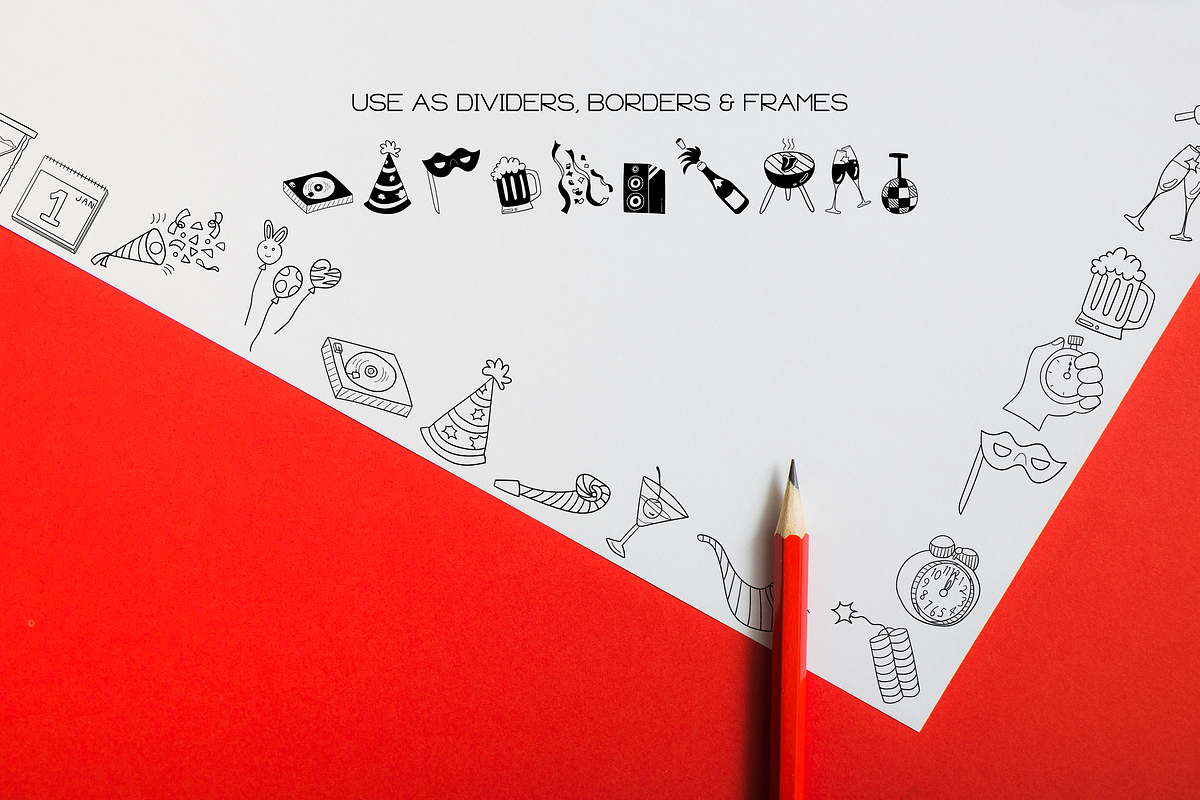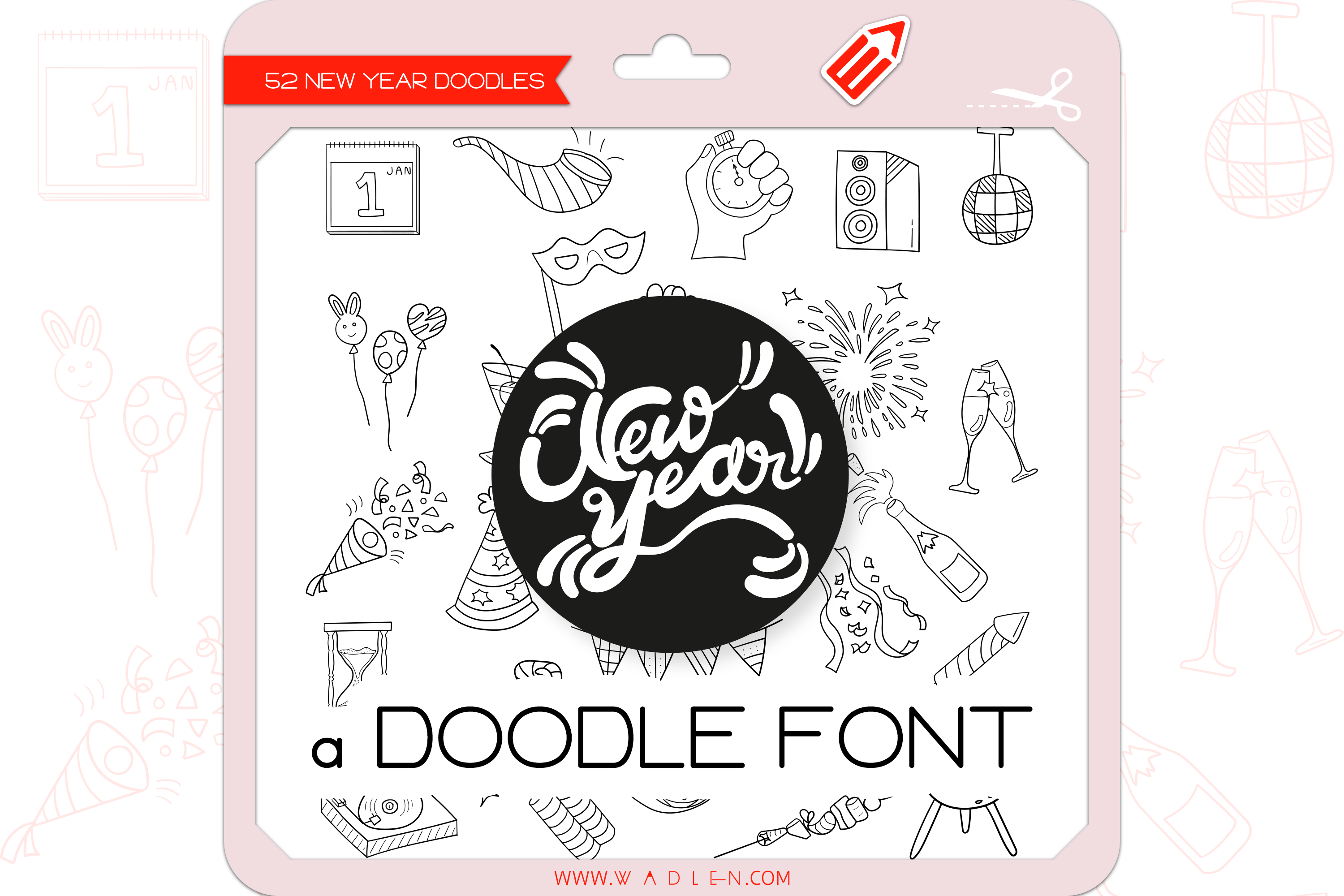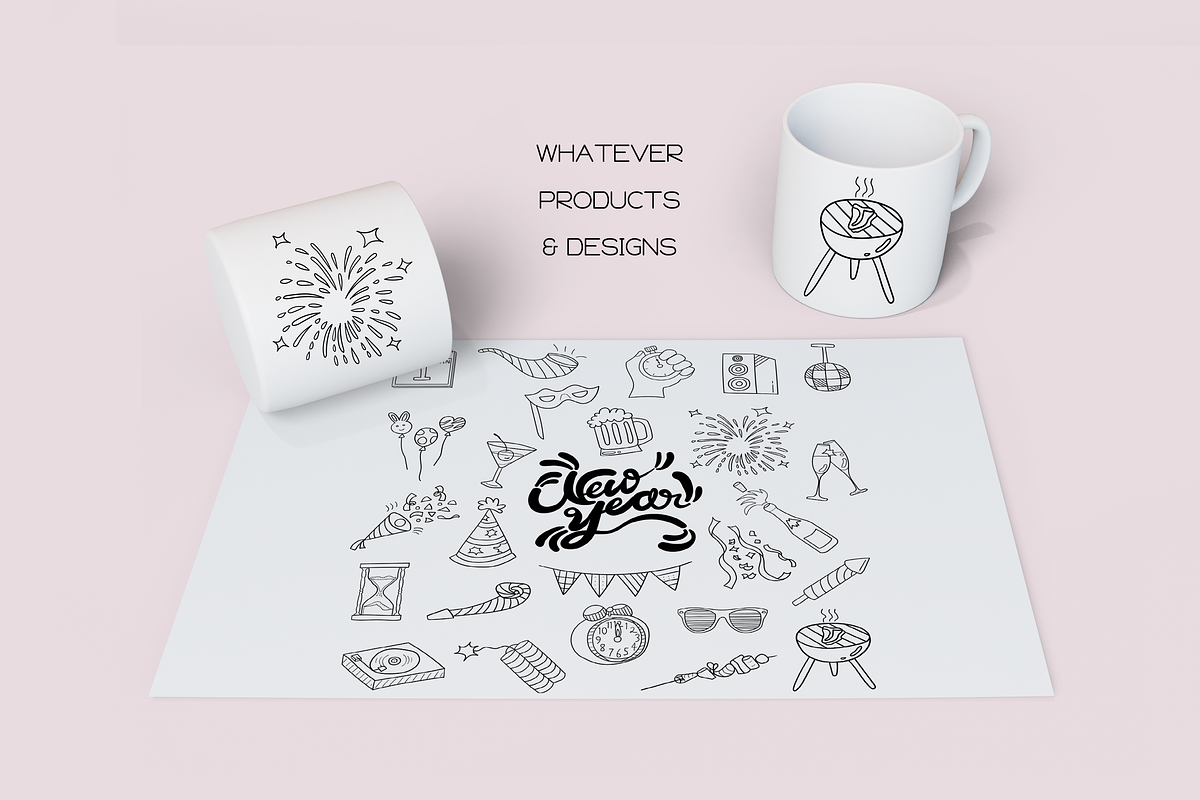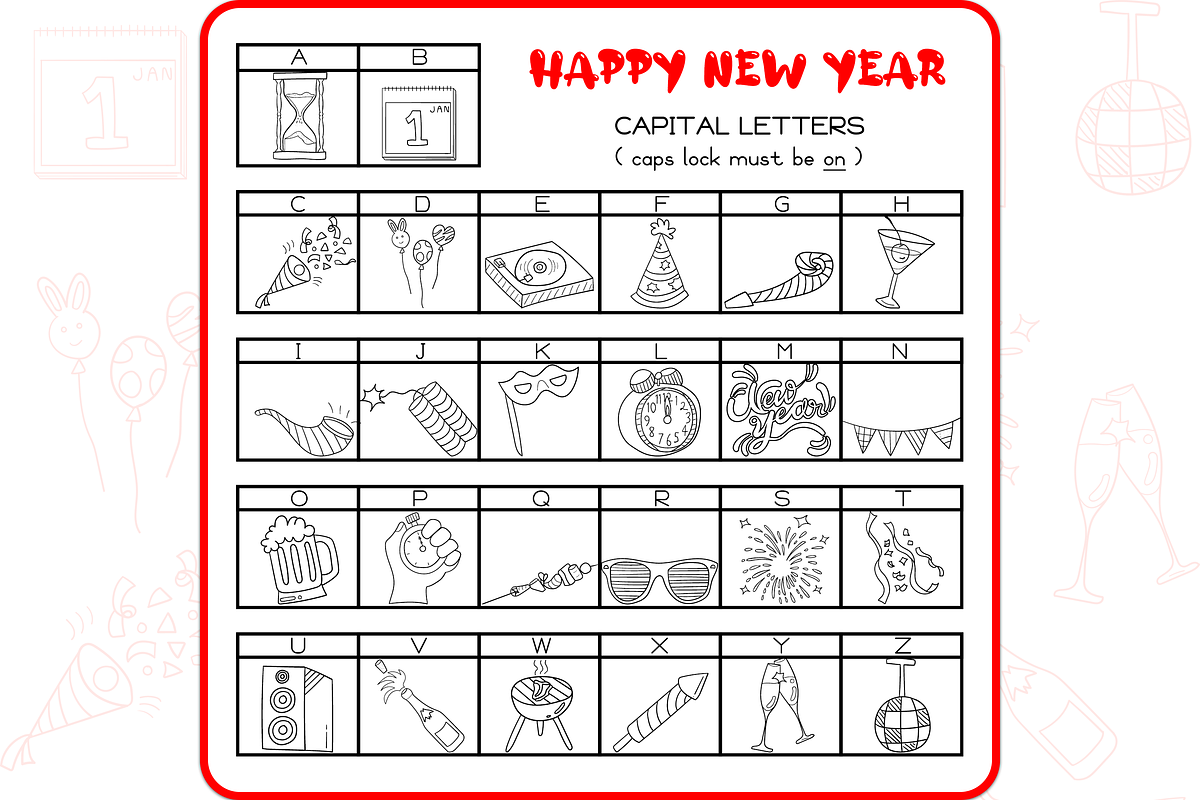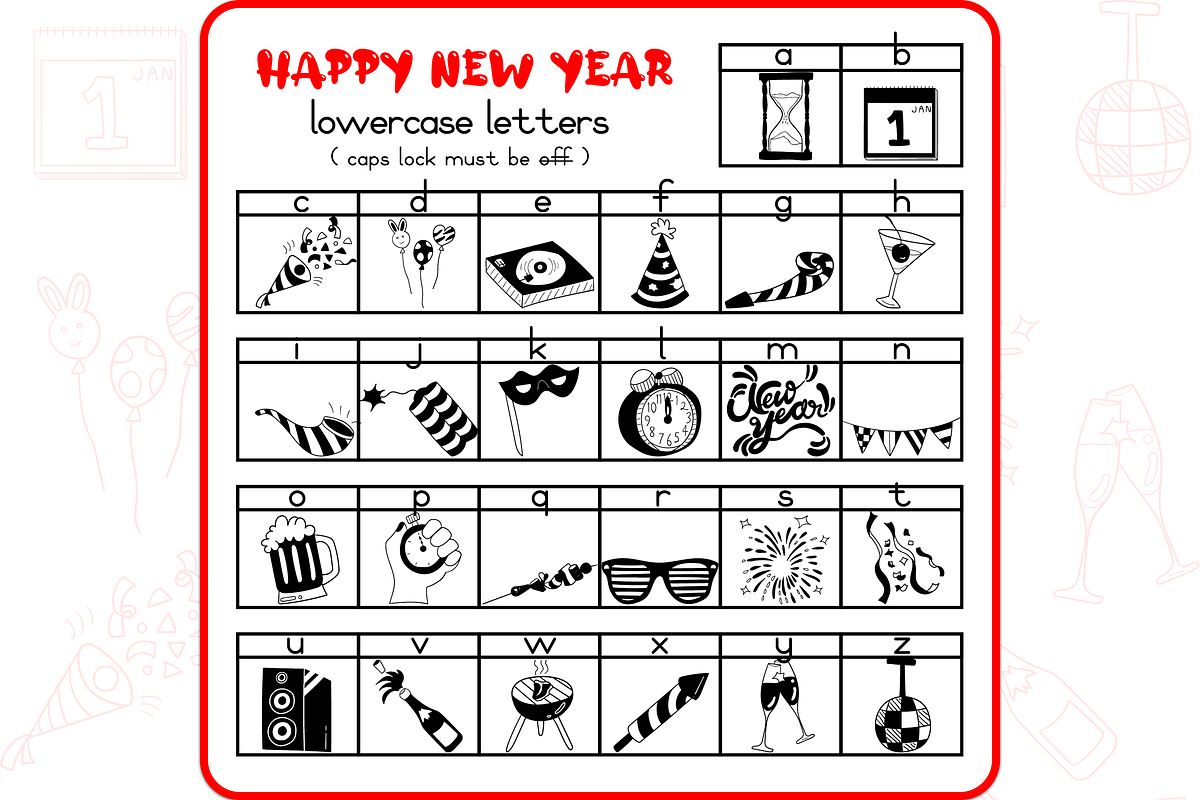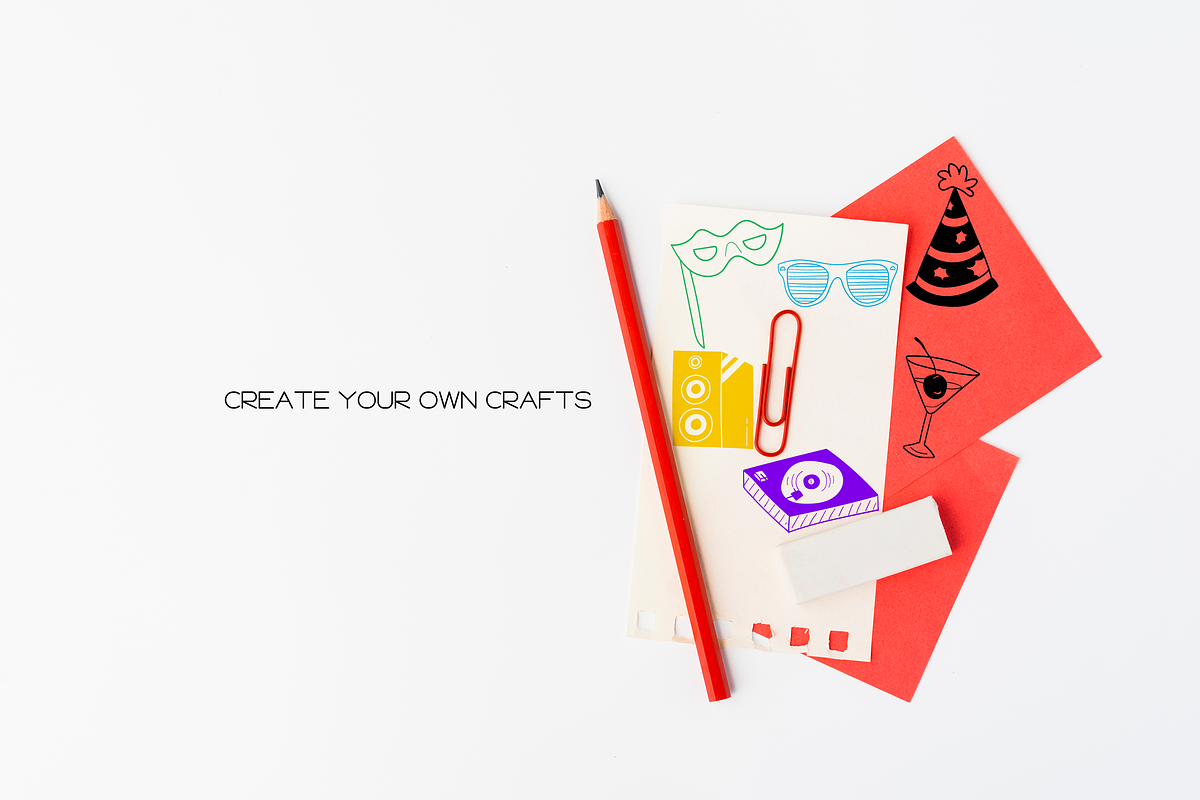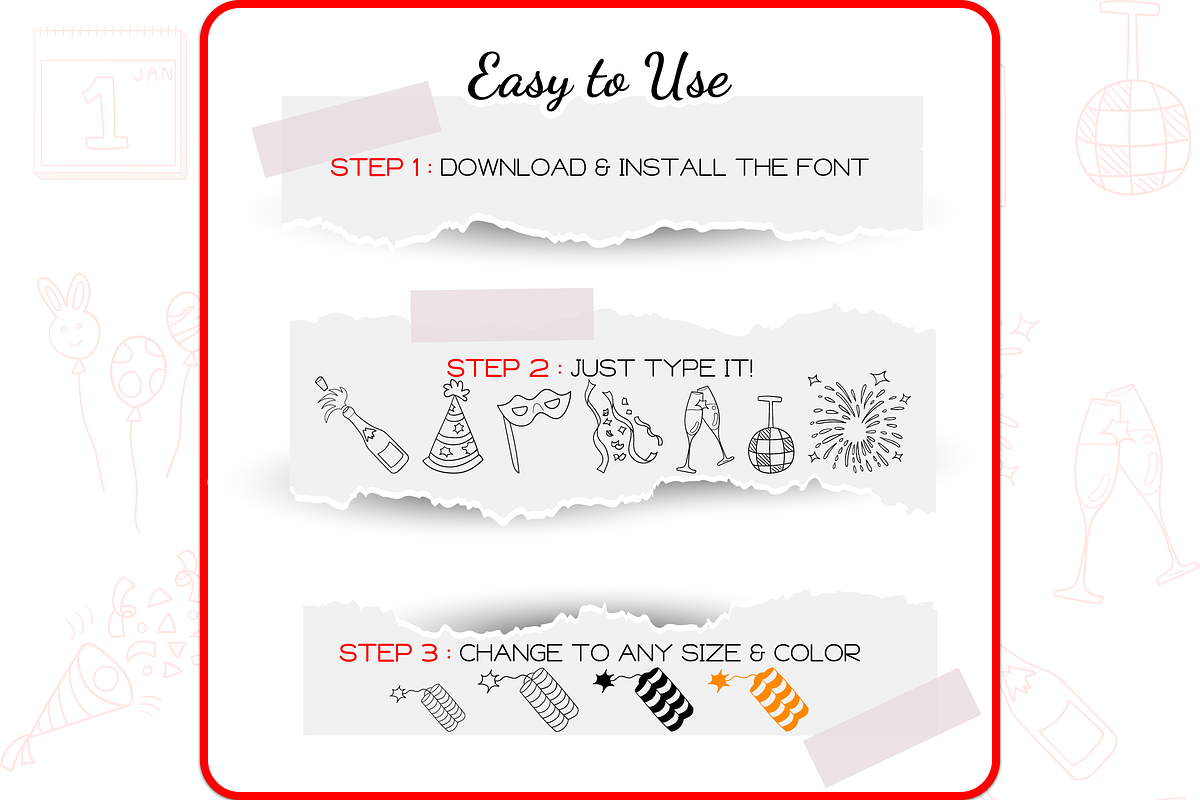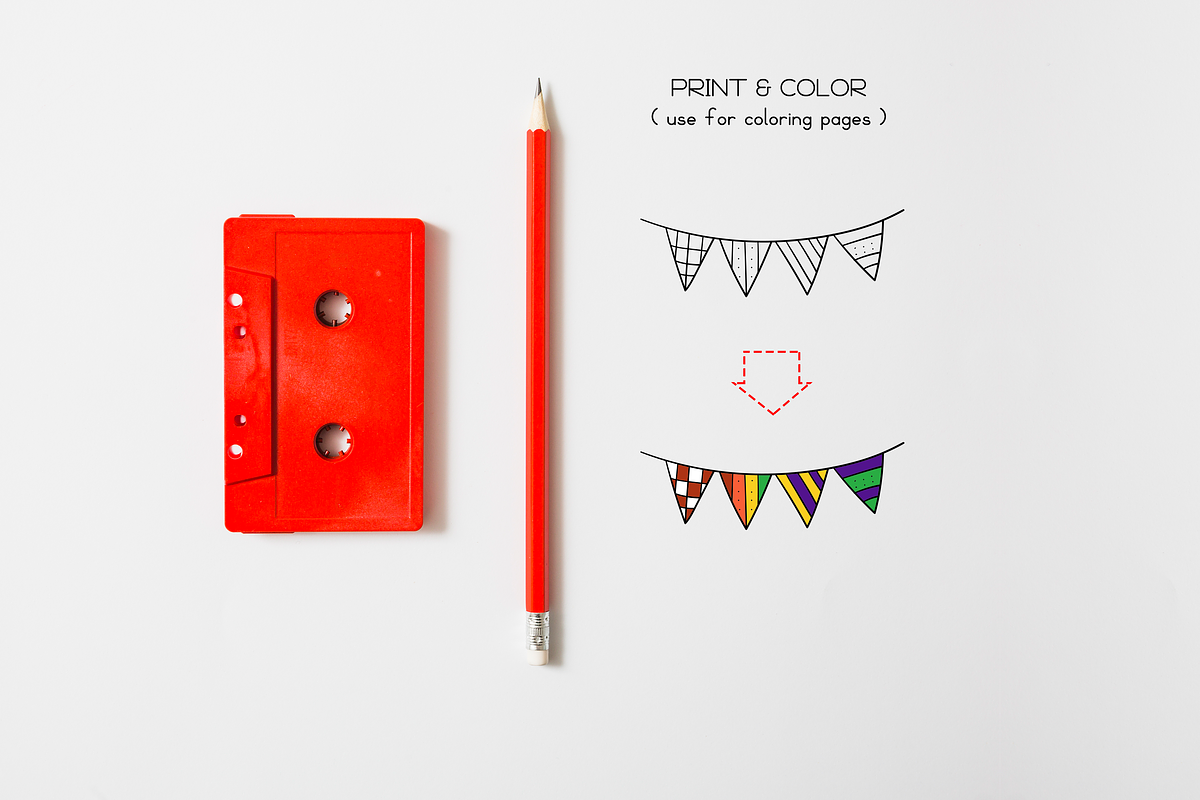
New Year Doodles - Dingbats Font
New Year dingbats font containing 52 hand-drawn doodles.
Fireworks, Countdown, Party hat, Firecracker, Champagne, Confetti, Balloons, Hourglass, Mask, Streamers, Noisemaker, Rocket, Calendar, Cheers, Cocktail, Party horn, Party poppers, Speaker, Beer, Turntable, Striped Sunglasses, Alarm clock, Barbecue stick, Barbecue grill, Disco ball